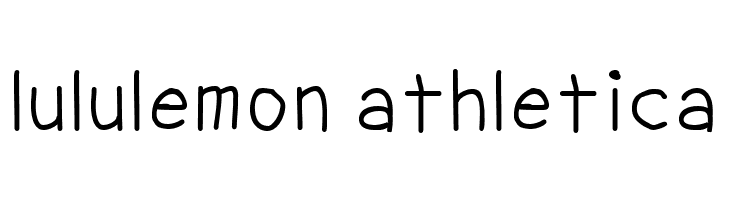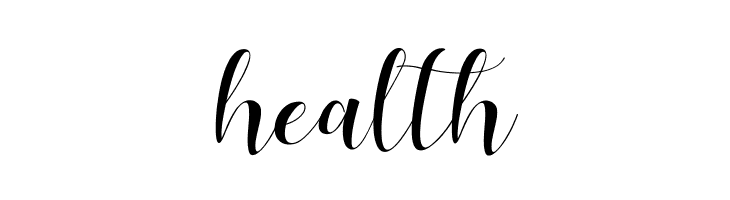
A playful, casual handwritten font with rounded edges and irregular letterforms.
An elegant script font with flowing, cursive style and high contrast strokes.
A bold, graffiti-inspired font with intricate, angular designs.
A bold, brush-style font with dynamic, expressive strokes.
A bold, playful font with rounded edges and a chunky design.
A bold, distressed font with a rugged, textured appearance.